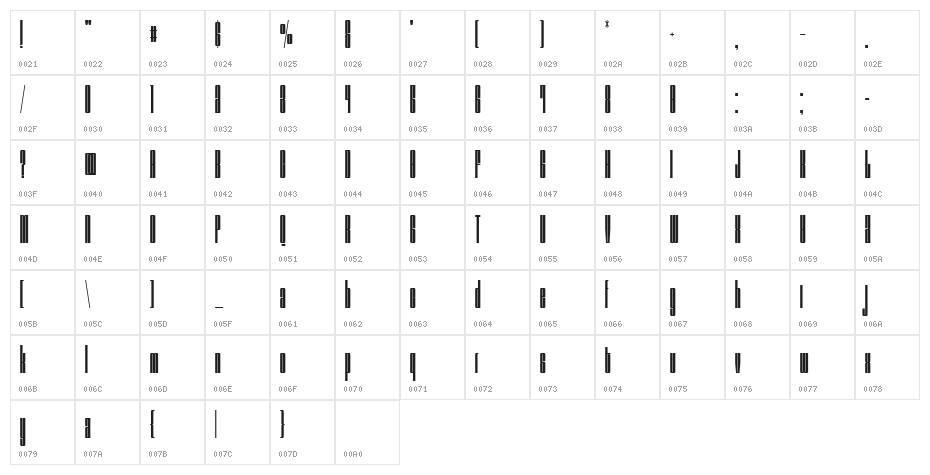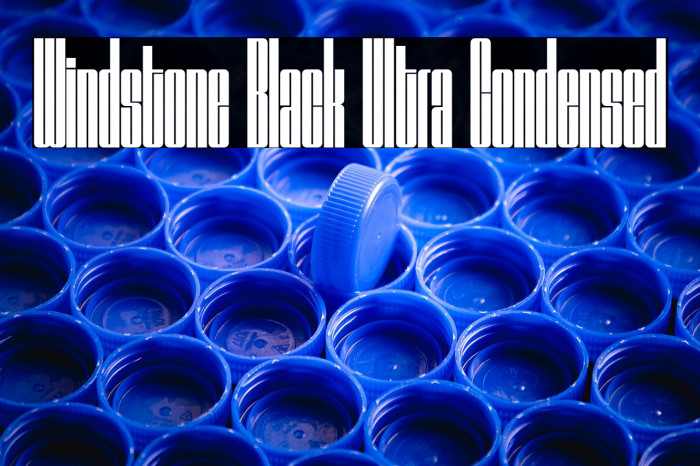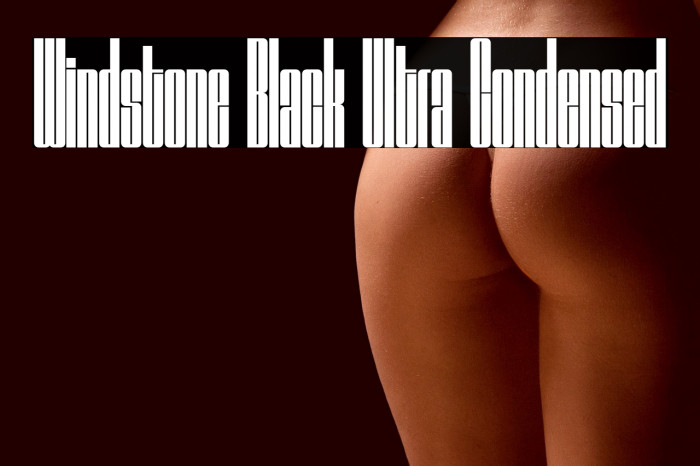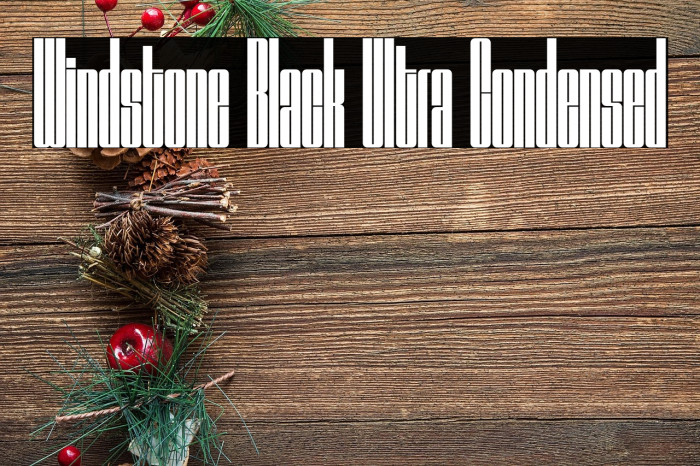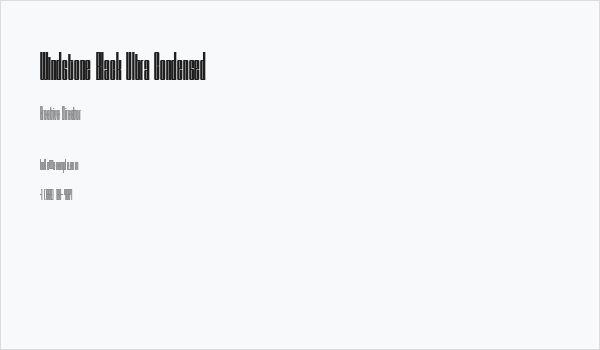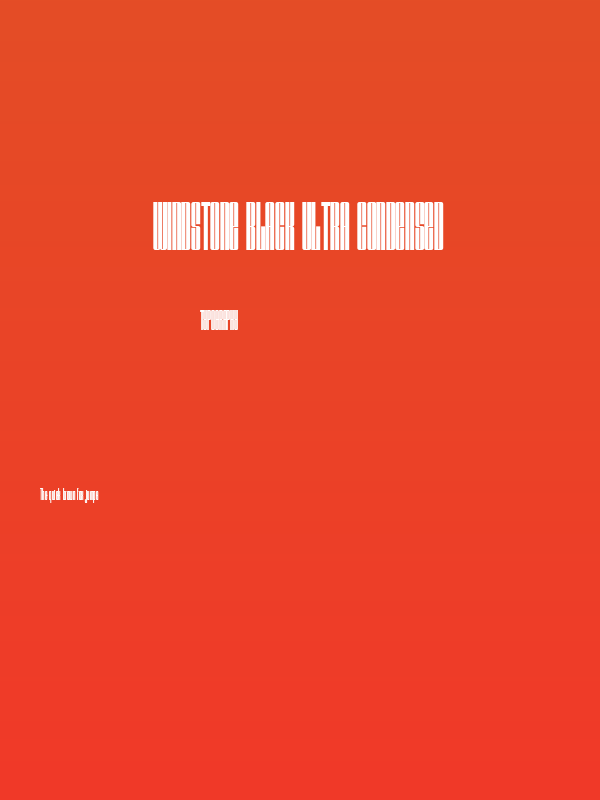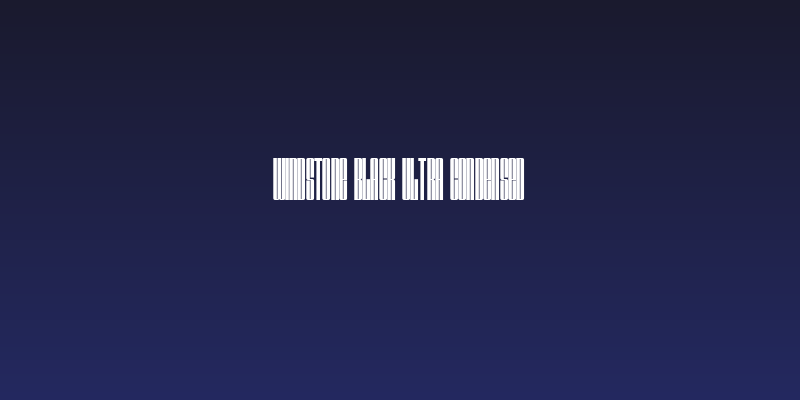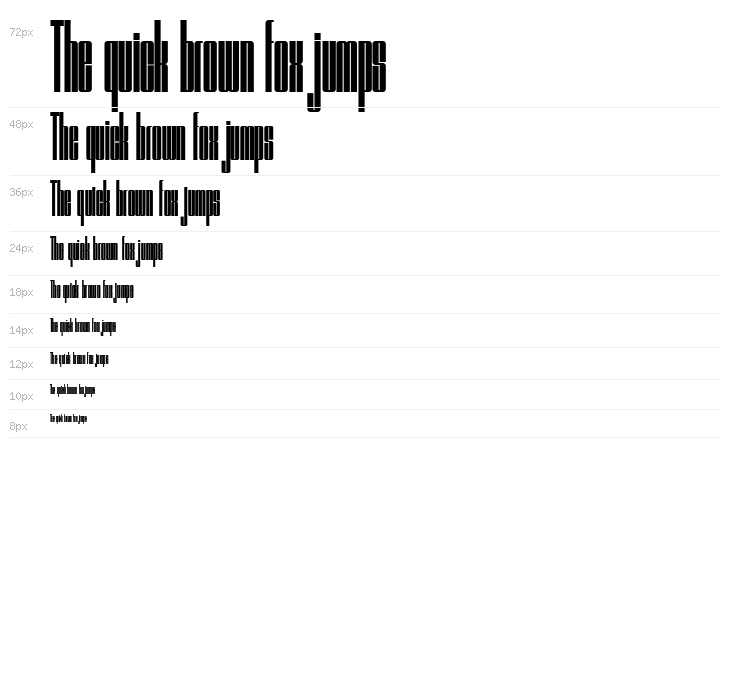
Windstone Black Ultra Condensed Font
Windstone Black Ultra Condensed Description
This font features an ultra-condensed style with bold, vertical strokes that create a striking and impactful appearance. The characters are tightly packed, emphasizing height over width, which gives it a modern and edgy look. The uppercase and lowercase letters maintain a consistent thickness, contributing to a uniform and cohesive design. The numerals and special characters follow the same condensed and bold aesthetic, ensuring a seamless integration across all text elements. This font is ideal for making a bold statement, with its high contrast and distinctive style.
| Proposed Projects | Ideal for headlines, posters, branding, and any project requiring a strong visual impact. |